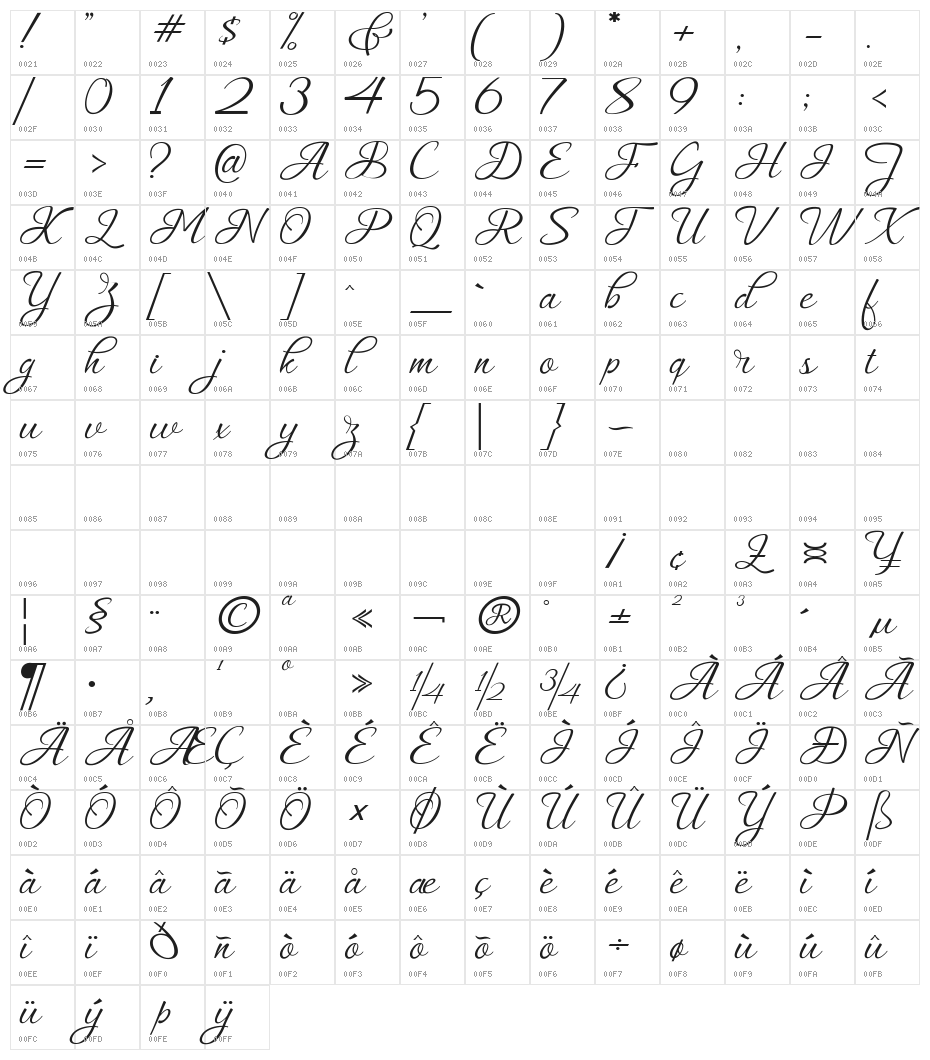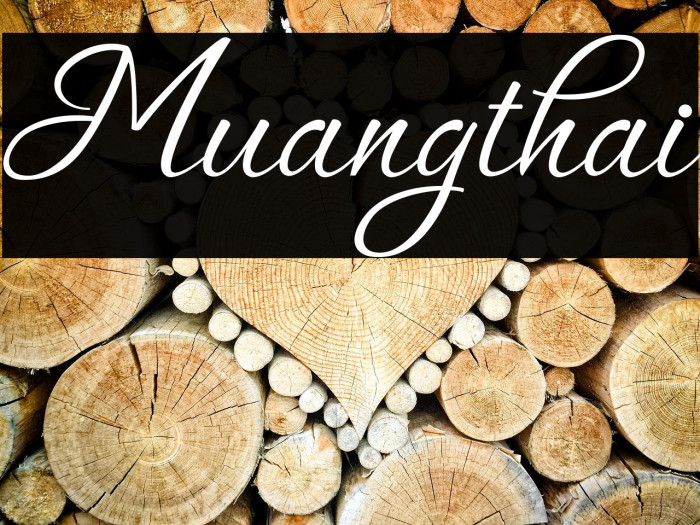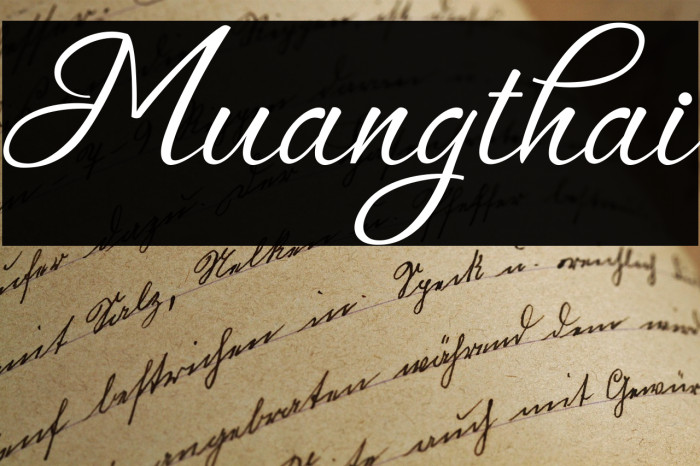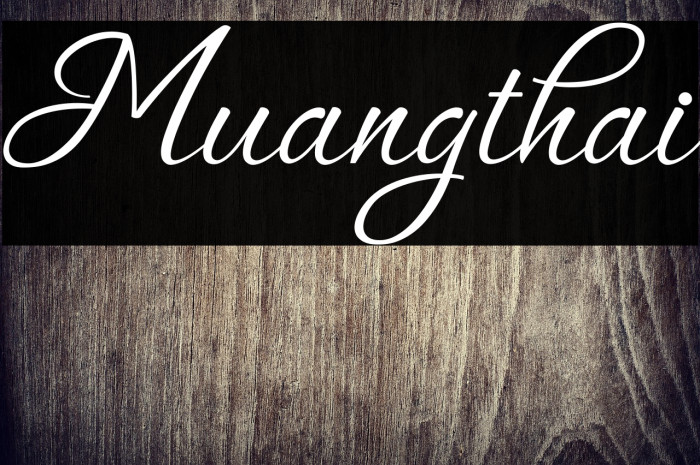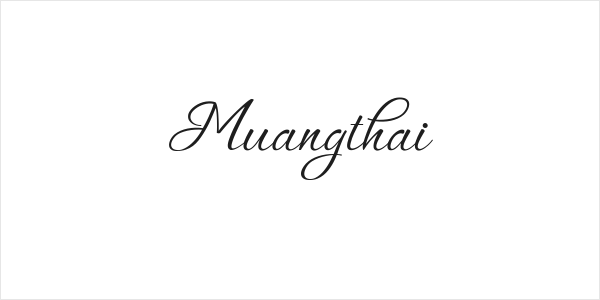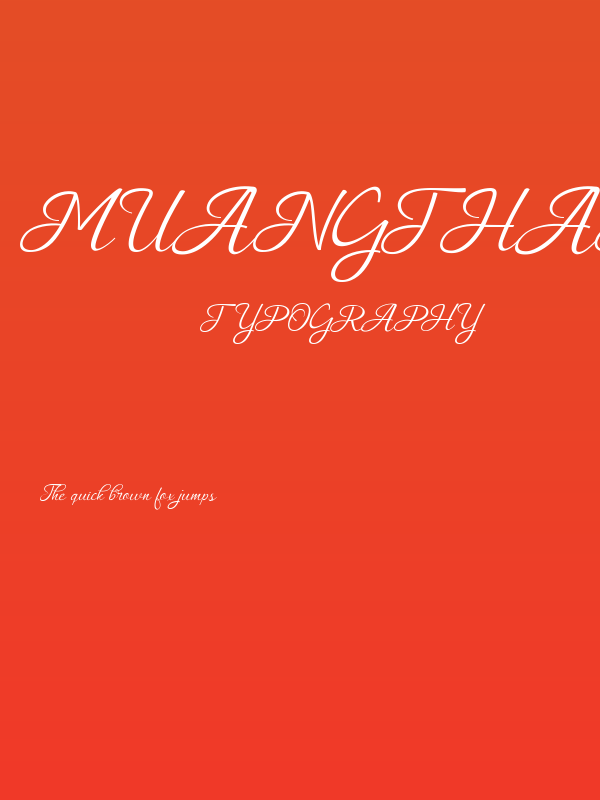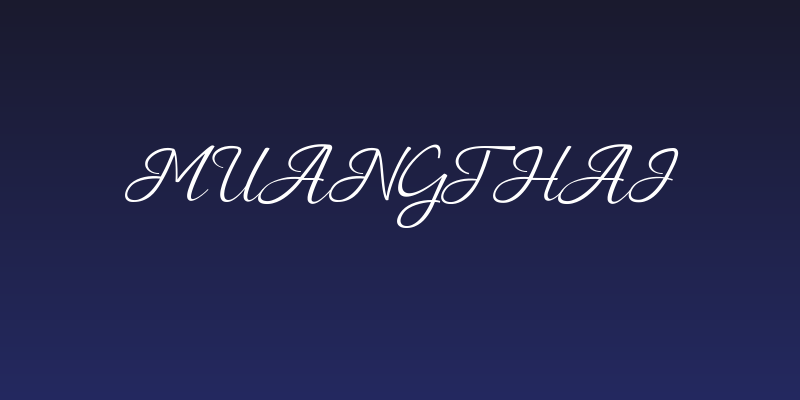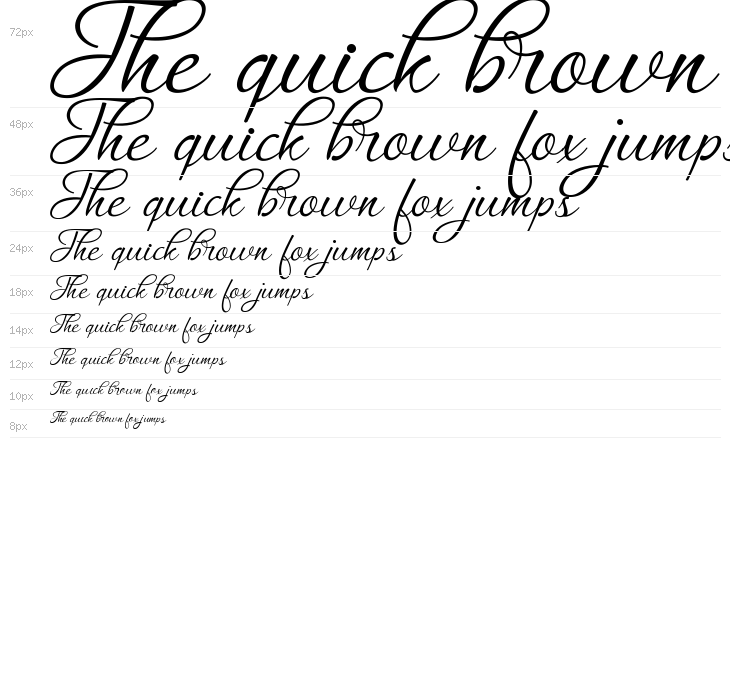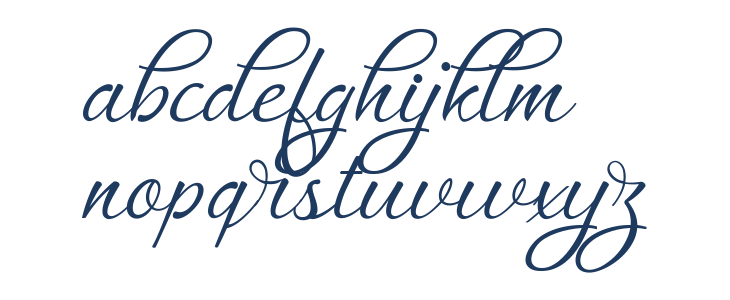
Muangthai Font
Muangthai Description
This elegant script font features flowing, cursive letterforms with a sophisticated and graceful appearance. The uppercase letters are intricately designed with sweeping curves and delicate loops, while the lowercase letters maintain a consistent fluidity, enhancing the overall aesthetic. The numerals and special characters complement the style, offering a cohesive look across all glyphs. This font exudes a sense of refinement and is ideal for projects that require a touch of elegance and class.